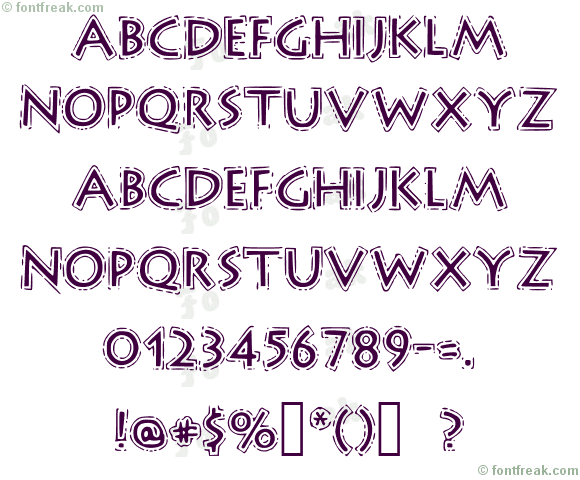
OutlineStorm
OutlineStorm is a captivating display font created by Leonard Posavec, available for free download at MyScriptFont.com. This unique typeface features a bold, outlined style that immediately draws attention, making it an ideal choice for a variety of creative projects. As a display font, OutlineStorm stands out with its distinctive visual characteristics, including thick strokes with a playful outline that adds depth and personality to each letterform. The font's ample spacing ensures clarity and legibility, while its decorative elements enhance its overall appeal.
This font is particularly well-suited for use in eye-catching applications such as movie posters, where it can convey a sense of excitement and energy. It also works beautifully for children's book covers, helping to capture the whimsical nature of storytelling. For graphic designers looking to create vibrant restaurant menus, OutlineStorm can bring a fun, modern touch that engages diners. Additionally, it can elevate wedding invitations, offering a stylish and contemporary look that reflects the joy of the occasion.
Targeting graphic designers, small business owners, and content creators, OutlineStorm is versatile enough to suit various branding needs. Its unique characteristics make it an excellent choice for anyone looking to make a bold statement in their design work.
In a sea of conventional typefaces, OutlineStorm font free download provides a refreshing alternative that combines fun with functionality. Its striking visual style and adaptability make it a standout choice for anyone seeking to inject personality and flair into their projects. Whether you're designing for print or digital media, OutlineStorm is sure to leave a lasting impression.